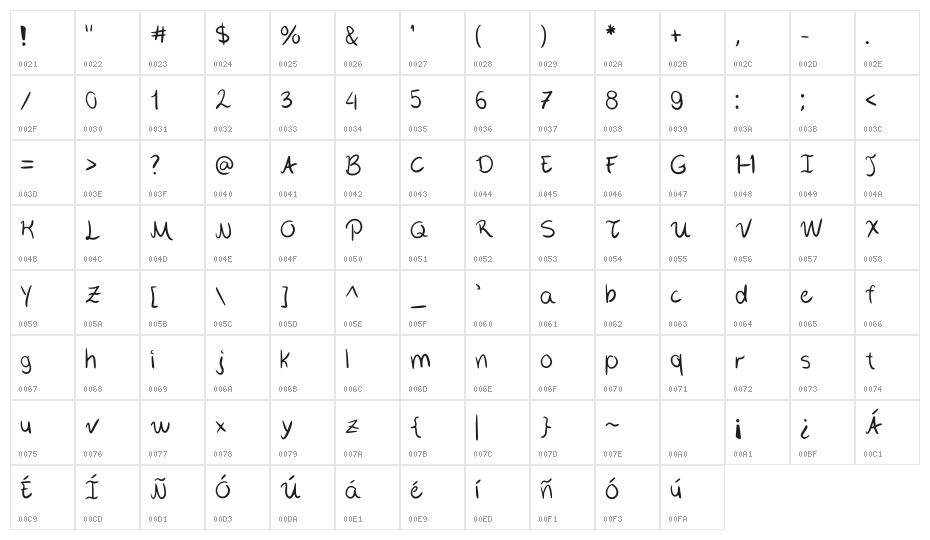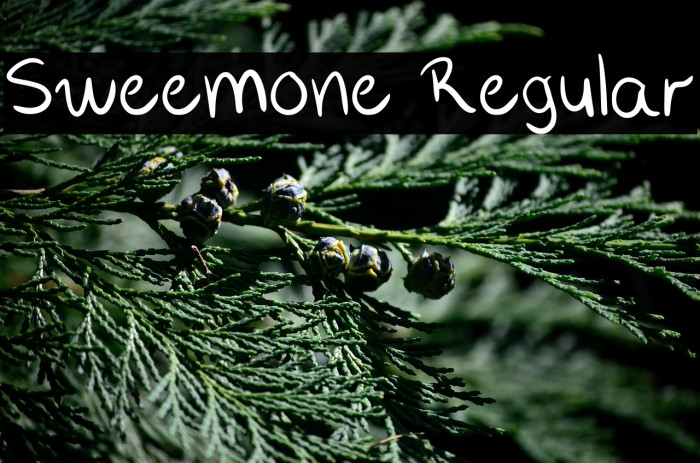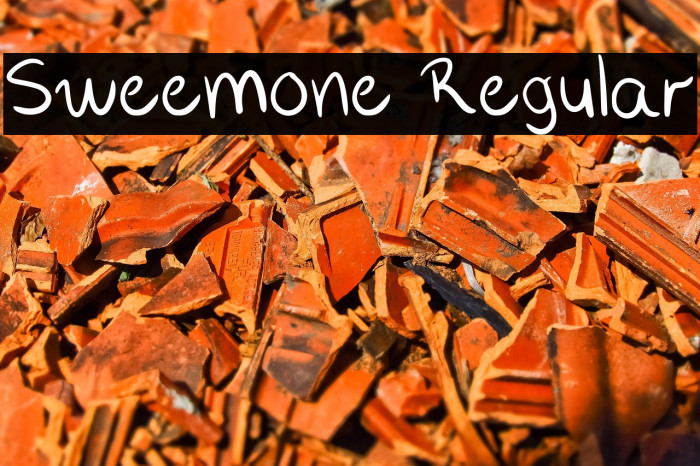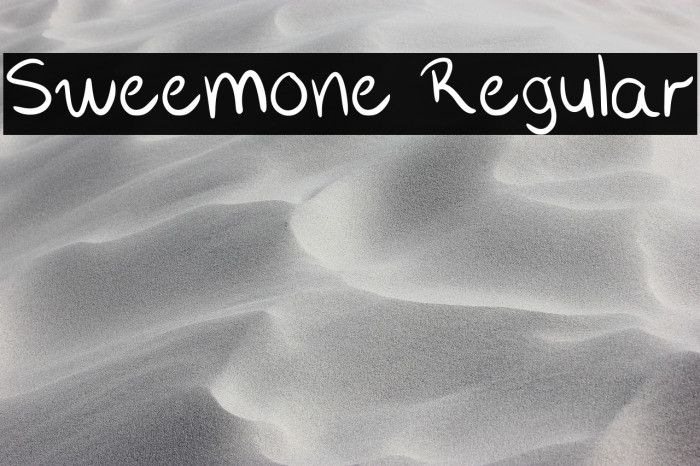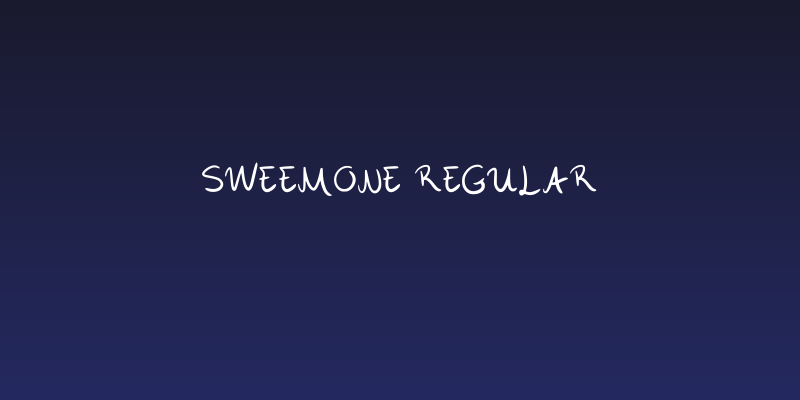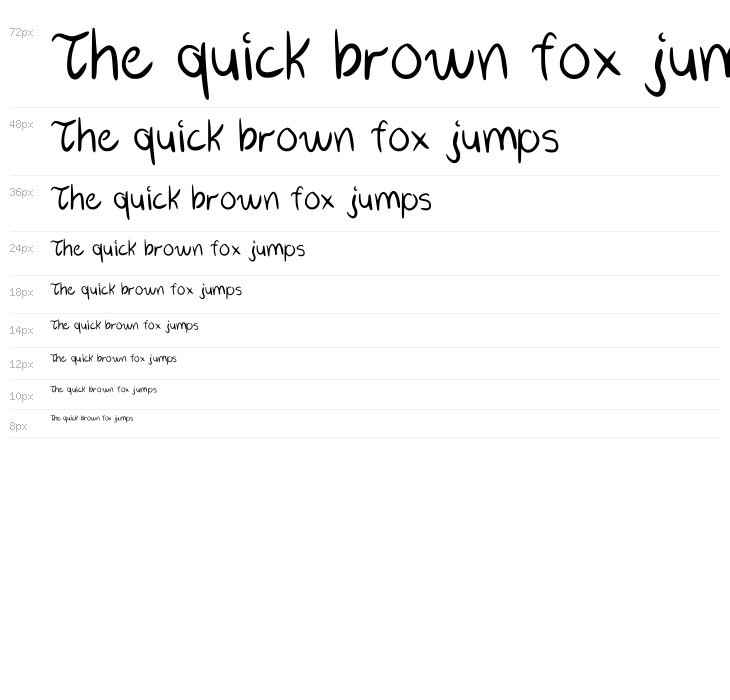
Sweemone Regular Font
Sweemone Regular Description
This font features a playful, handwritten style with a casual and friendly appearance. The letters are slightly irregular, giving it a natural and organic feel. The strokes are smooth and flowing, with a consistent medium weight throughout. The characters are well-spaced, providing good readability while maintaining a whimsical charm. This font includes a full set of uppercase and lowercase letters, numerals, and a variety of special characters, making it versatile for various design needs.
| Overall Style | Casual |
| Use Case | Greeting cards, Informal invitations, Playful branding |
| Proposed Projects | Ideal for greeting cards, children's books, informal invitations, and playful branding. |